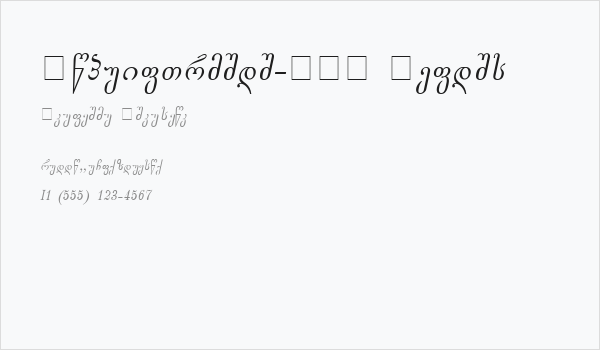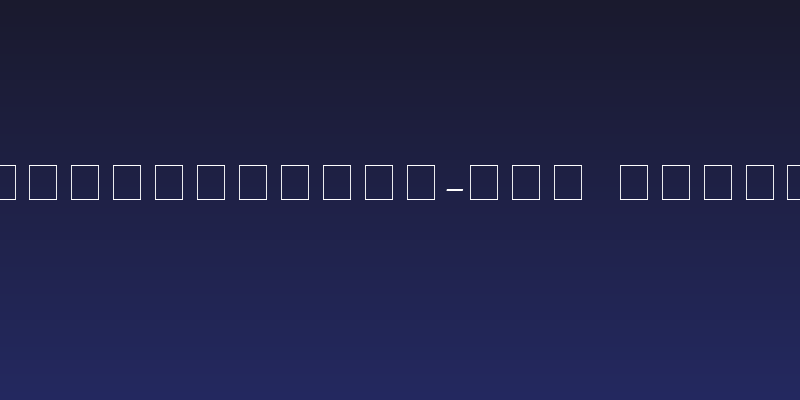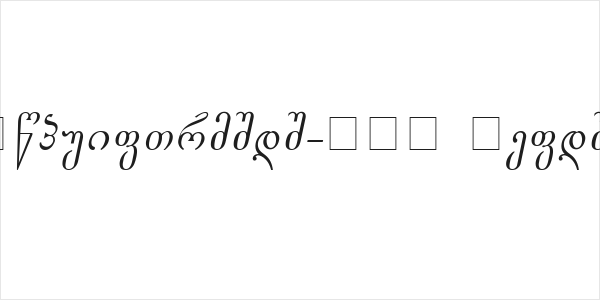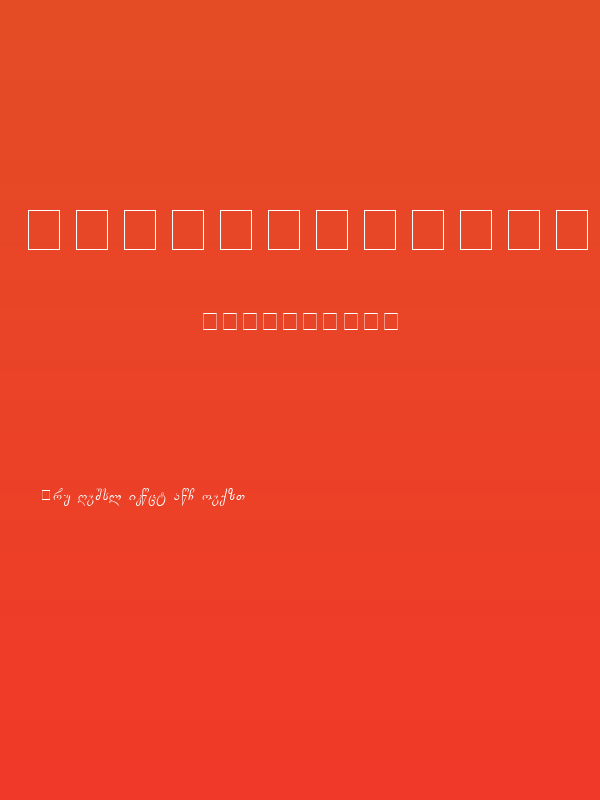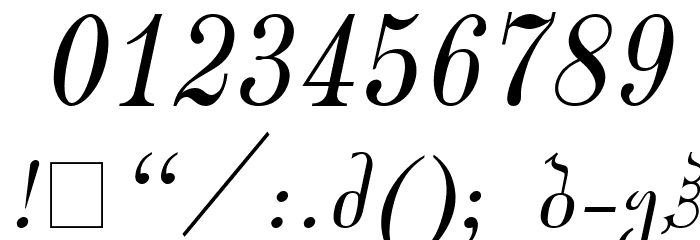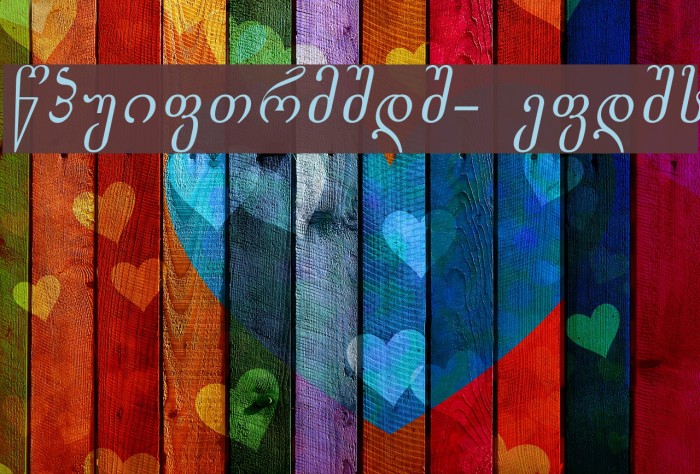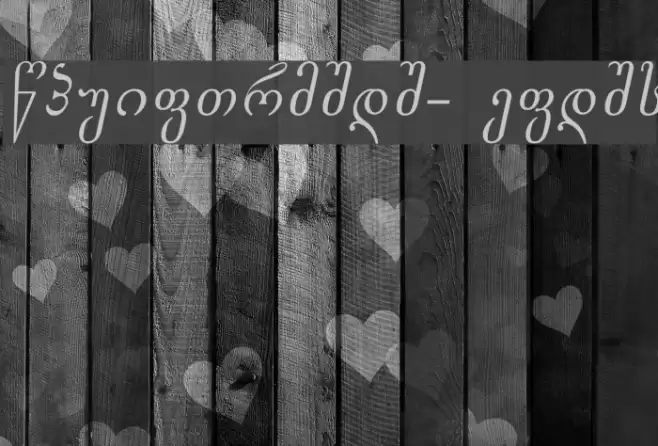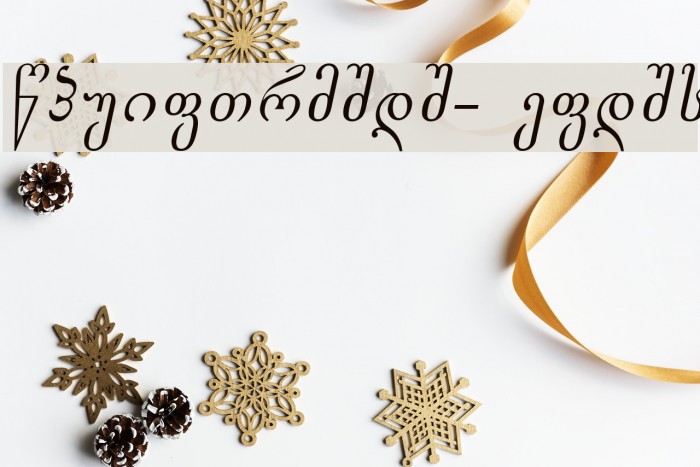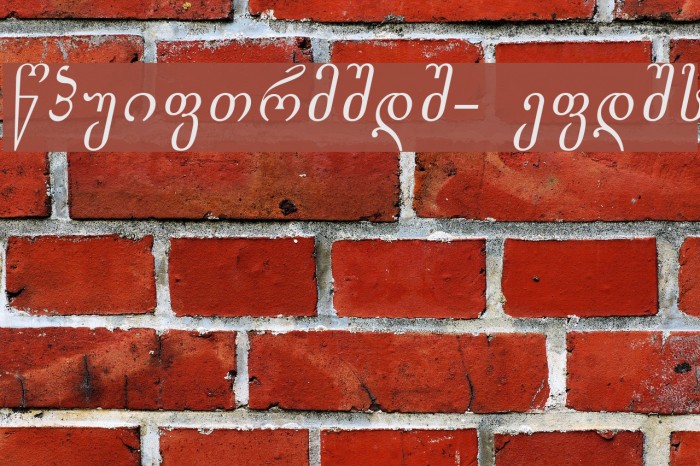
Gogebashvili-ITV Italic Font
Gogebashvili-ITV Italic Description
This font features a distinct italic style with elegant curves and a flowing script-like appearance. The characters exhibit a harmonious balance between thick and thin strokes, creating a dynamic and sophisticated look. The numerals are designed with a similar flair, maintaining consistency across the typeface. Special characters are crafted with attention to detail, enhancing the overall aesthetic. This font is well-suited for projects that require a touch of elegance and refinement.
| Overall Style | Elegant |
| Use Case | Logos, Invitations, Editorials |
| Proposed Projects | Ideal for wedding invitations, elegant branding, and sophisticated editorial design. |